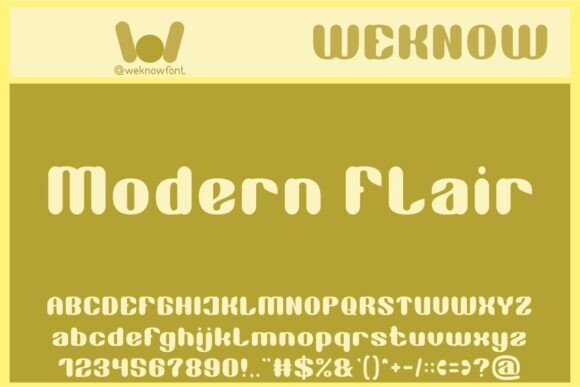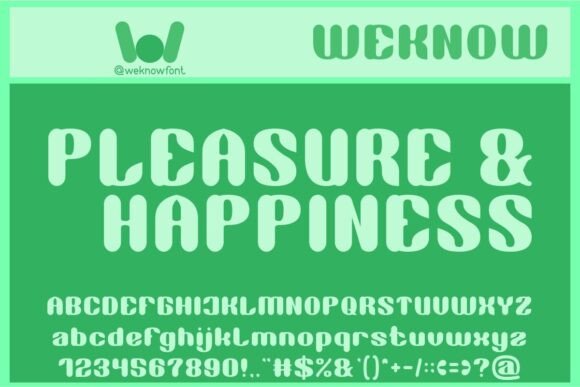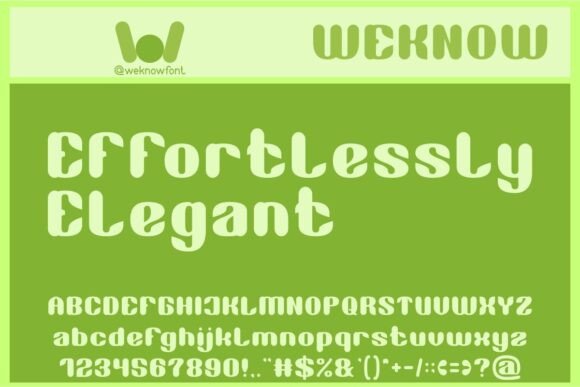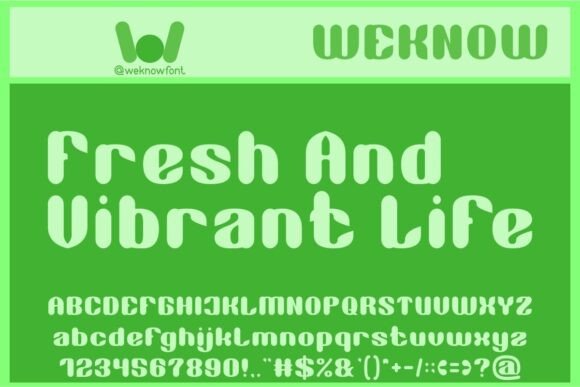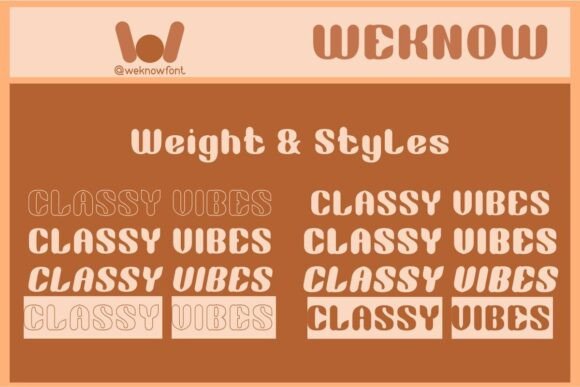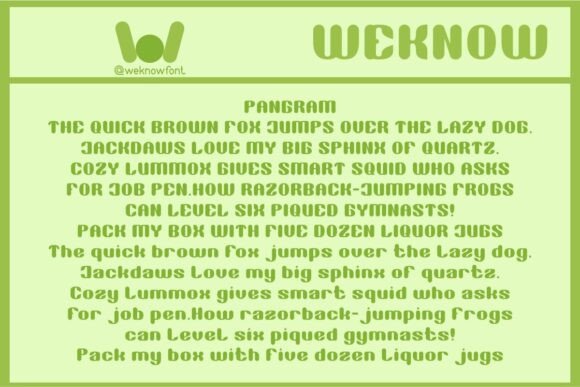
Unlocking the Elegance of Classy Vibes Font
Have you ever been in the middle of a design project, and suddenly, it hits you – the font you’ve chosen just isn’t doing justice to your creative vision? I recall a particularly frustrating experience while working on a branding project for a high-end fashion label. The client wanted a font that exuded elegance, sophistication, and a touch of playfulness. After hours of scouring through font libraries, I stumbled upon “Classy Vibes.” It was as if the design gods had smiled upon me, bestowing upon me the perfect solution. In this article, we’ll dive into the world of Classy Vibes, exploring its features, uses, and what makes it an excellent addition to your design toolkit.
A Personal Review of Classy Vibes
- ✨ Elegant and eclectic design that adds a touch of sophistication to any project
- ✅ Highly versatile, suitable for a wide range of design tasks, from logos and branding to posters, music tracks, and more
- 🌿 Inspired by nature and positivity, giving it a unique and refreshing feel
While Classy Vibes is an exceptional font, there are a few minor quirks to be aware of:
- ⚠️ Some users may find the font’s eclectic nature a bit challenging to pair with other typefaces
- 🤔 Limited availability of certain glyphs or special characters, which may require additional design workarounds
The Backstory of Classy Vibes
Classy Vibes was designed with the intention of capturing the essence of elegance and eclecticism. Inspired by the beauty of nature and the positivity of the world around us, this font embodies a sense of joy and playfulness. The designer aimed to create a typeface that would not only reflect sophistication but also add a touch of whimsy to any design project.
Q: Is Classy Vibes a versatile font?
A: Absolutely! Classy Vibes is a highly versatile font, suitable for a wide range of design tasks, from logos and branding to posters, music tracks, and more.